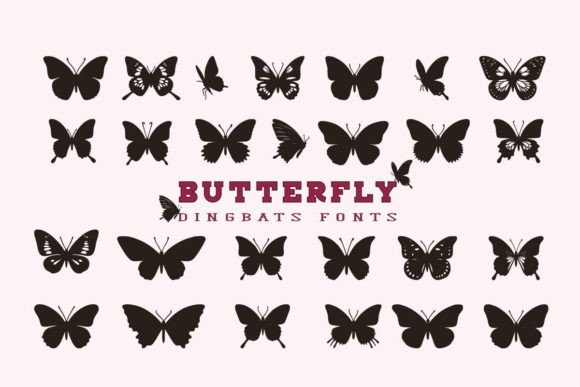
The Magical World of Butterfly Font: A Designer’s Delight
I still remember the time I was working on a project for a client’s wedding invitation. I had all the design elements in place – beautiful floral patterns, elegant graphics, and a lovely color scheme. But something was missing. That’s when I stumbled upon the Butterfly font, and it completely transformed my design. The whimsical, delicate feel of the font perfectly captured the essence of the wedding celebration. In this article, I’ll share my experience with the Butterfly font, its features, and how to make the most of it in your designs.
An Honest Review of Butterfly Font
The Butterfly font has won my heart with its charming and versatile design. Here are some aspects that I absolutely love:
- ✨ Delicate and Whimsical Design: The font features beautiful, intricate butterfly designs that add a touch of elegance to any project.
- ✅ Highly Versatile: Butterfly font is suitable for a wide range of projects, including advertising posts, invitations, greeting cards, photo albums, and decorations.
While the Butterfly font is amazing, there are a few minor quirks to be aware of:
- 🤔 Limited Character Set: As a dingbats font, it may not have the full range of characters you’d find in a traditional font.
- ⚠️ Requires OpenType Features: To get the most out of the font, you’ll need to use OpenType features, which can be a bit tricky for beginners.
The Butterfly font was designed by a talented type designer who’s passionate about creating beautiful, whimsical fonts. Inspired by the delicate beauty of butterflies, this font is perfect for designers who want to add a touch of elegance to their projects. The designer’s goal was to create a font that’s both versatile and eye-catching, making it suitable for a wide range of creative projects.
| What type of projects is the Butterfly font suitable for? | The Butterfly font is suitable for various projects such as advertising posts, invitations, greeting cards, photo albums, and decorations. |